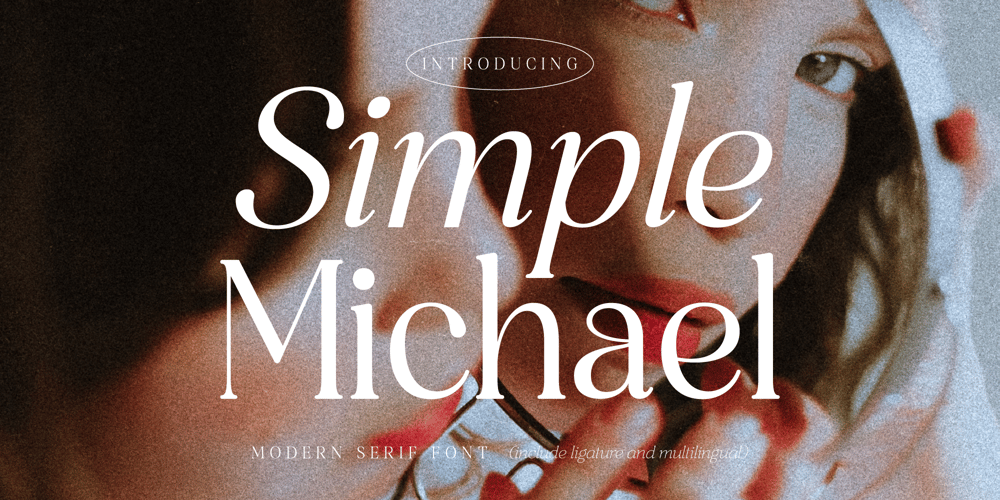
Simple Michael Font Family was designed by Heru Utama Putra and published by Letterena Studios. Simple Michael contains 2 styles and family package options. Proudly present Simple Michael Typeface.A serif modern and classic typeface that has its own unique style & modern look.This typeface is perfect for an elegant & luxury logo, book or movie title design, fashion brand, magazine, clothes, lettering, quotes, and so much more.